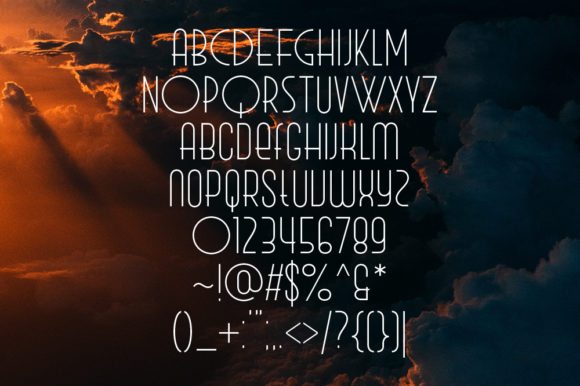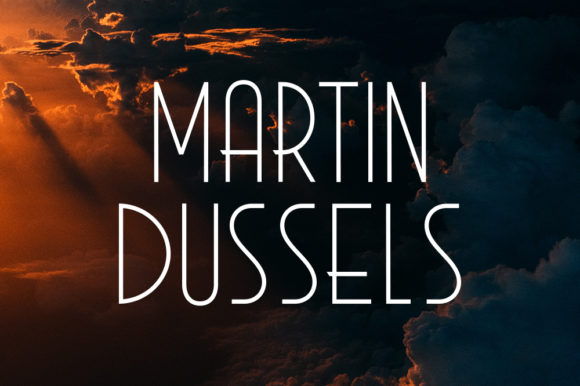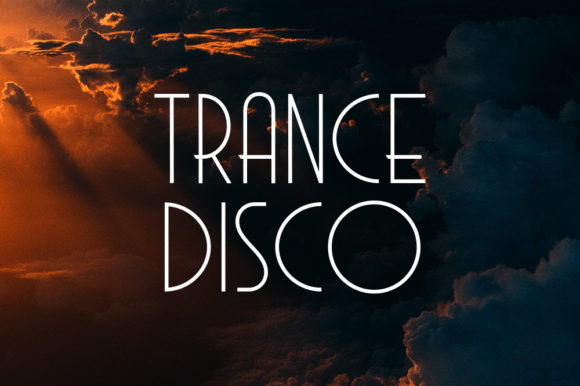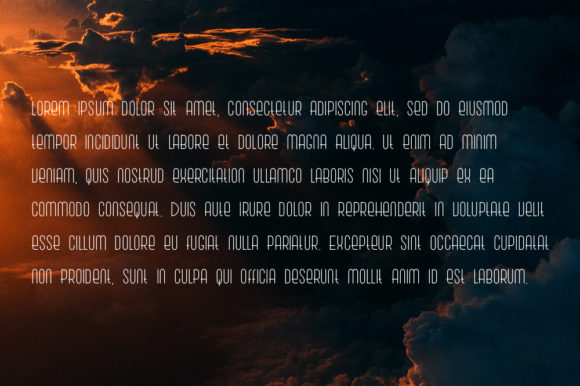
Auranouva Font: Elevate Your Designs with Futuristic Elegance
In the realm of typography, fonts play a pivotal role in conveying messages, evoking emotions, and setting the tone for designs. For those seeking a font that embodies the essence of futurism with a touch of minimalist elegance, Auranouva Font is an exceptional choice. Inspired by hi-fi techno aesthetics, Auranouva is not just a font; it’s a statement piece for designers and crafters looking to infuse their projects with a futuristic vibe.
The Genesis of Auranouva
Auranouva’s creation is rooted in the desire to blend technological advancements with aesthetic appeal. The font draws inspiration from the futurist movement, which emphasizes speed, technology, and innovation. However, unlike traditional futurist typography that often leans towards being bold and in-your-face, Auranouva strikes a balance by incorporating minimalist elements. This balance makes it versatile and suitable for a wide array of design applications, from digital interfaces to print materials.
Characteristics of Auranouva Font
Auranouva Font is characterized by its clean lines, geometric shapes, and a futuristic feel that doesn’t compromise on elegance. Its design ensures readability while imparting a unique character to any text. The font’s features include:
- Geometric Precision: Each letterform is crafted with geometric precision, giving the font its distinctive techno look.
- Minimalist Aesthetic: The font maintains a minimalist aesthetic, making it perfect for designs that require a subtle yet impactful typographic solution.
- Versatility: Auranouva is designed to be versatile, suitable for use in various design projects, including branding, web design, mobile apps, and more.
- Legibility: Despite its futuristic design, the font prioritizes legibility, ensuring that messages are conveyed clearly and effectively.
Applications of Auranouva Font
The applications of Auranouva Font are vast and varied. Designers and crafters can utilize this font in numerous projects, including:
- Branding and Logotypes: Auranouva can help create modern and memorable brand identities.
- Web and Mobile Design: Its clean and legible design makes it ideal for digital interfaces, enhancing user experience.
- Print Materials: From brochures and posters to business cards, Auranouva adds a touch of sophistication and futurism.
- Packaging: For product packaging that stands out, Auranouva offers a unique typographic solution.
Why Choose Auranouva?
Choosing Auranouva Font for your design projects comes with several advantages:
- Uniqueness: It offers a distinctive look that sets your designs apart.
- Flexibility: The font’s versatility allows it to be used across different mediums and applications.
- Modern Appeal: Auranouva’s futuristic aesthetic appeals to modern tastes and trends.
- Enhanced Readability: Despite its stylized appearance, the font maintains high readability.
Auranouva Font is a remarkable addition to the world of typography, offering a blend of futurism and minimalism that is hard to find. Its design caters to the needs of contemporary designers and crafters who seek to imbue their projects with a sense of innovation and elegance. Whether you’re working on a digital project or a print material, Auranouva is poised to elevate your designs, making them more engaging, distinctive, and impactful. Embrace the futuristic charm of Auranouva Font and let your creativity soar to new heights.